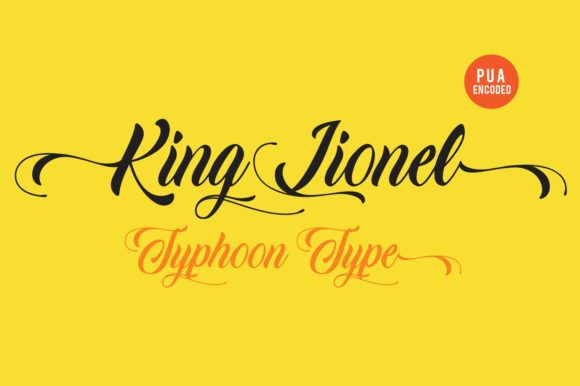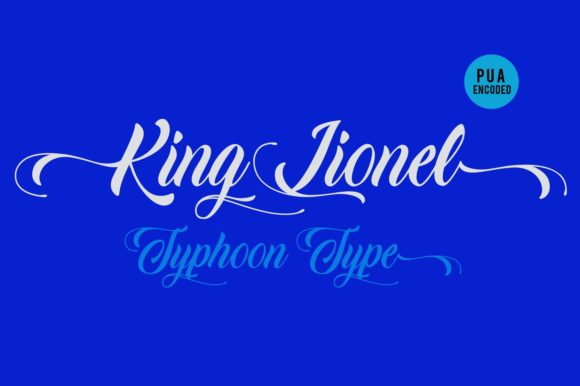
King Lionel Font
About King Lionel Font
King Lionel is a stunning and luxurious handwritten typeface with a creative twist. Get inspired by its unique feel!